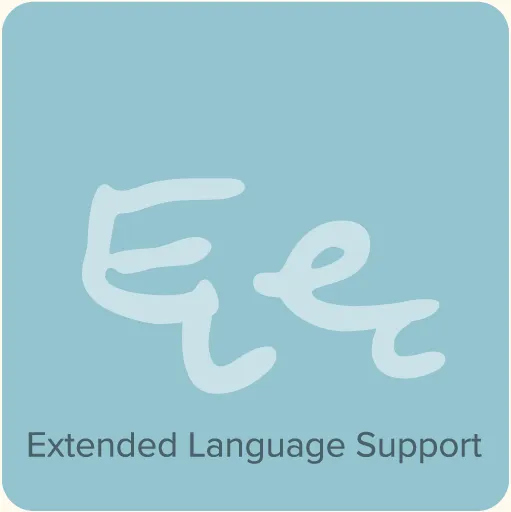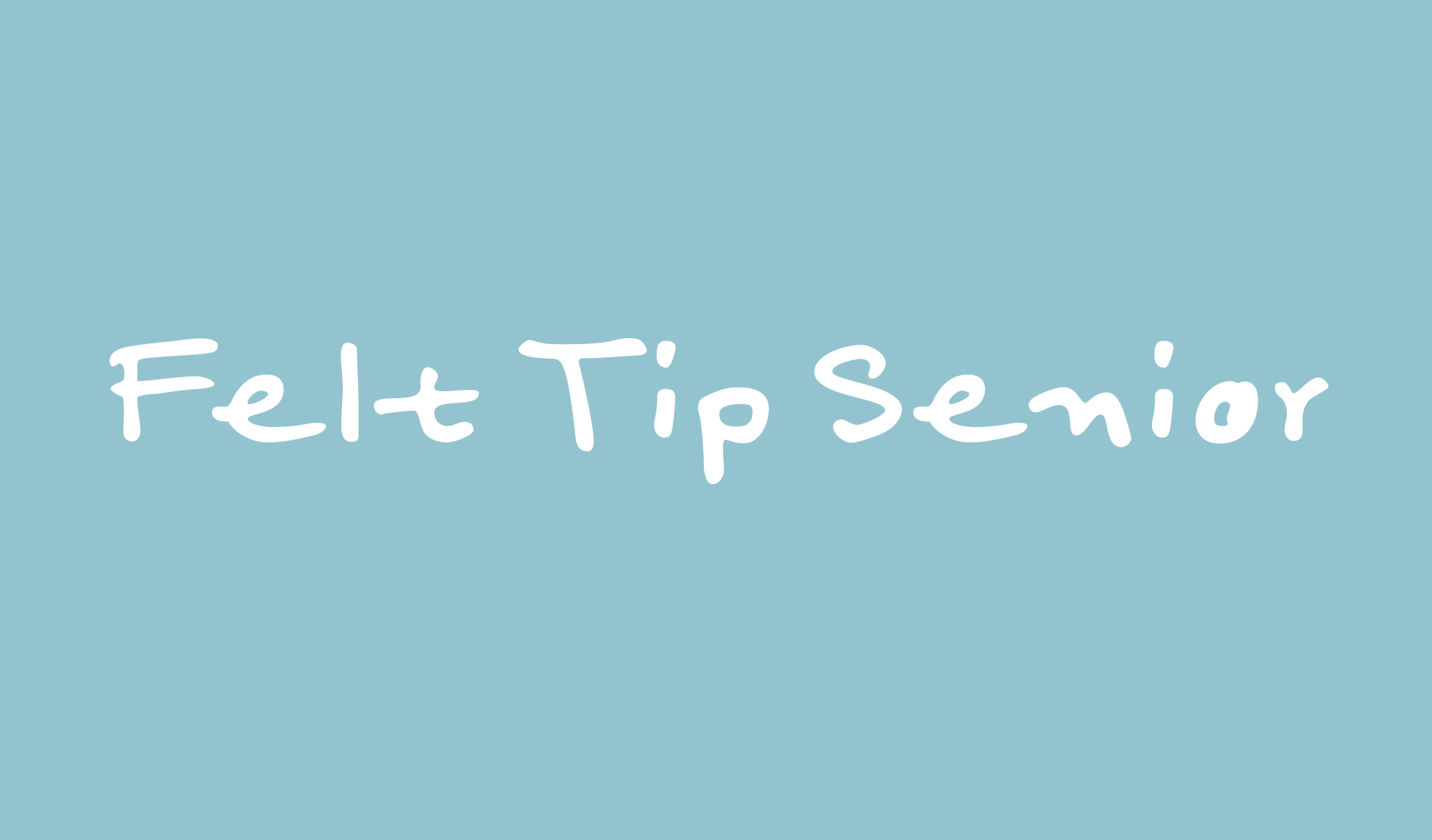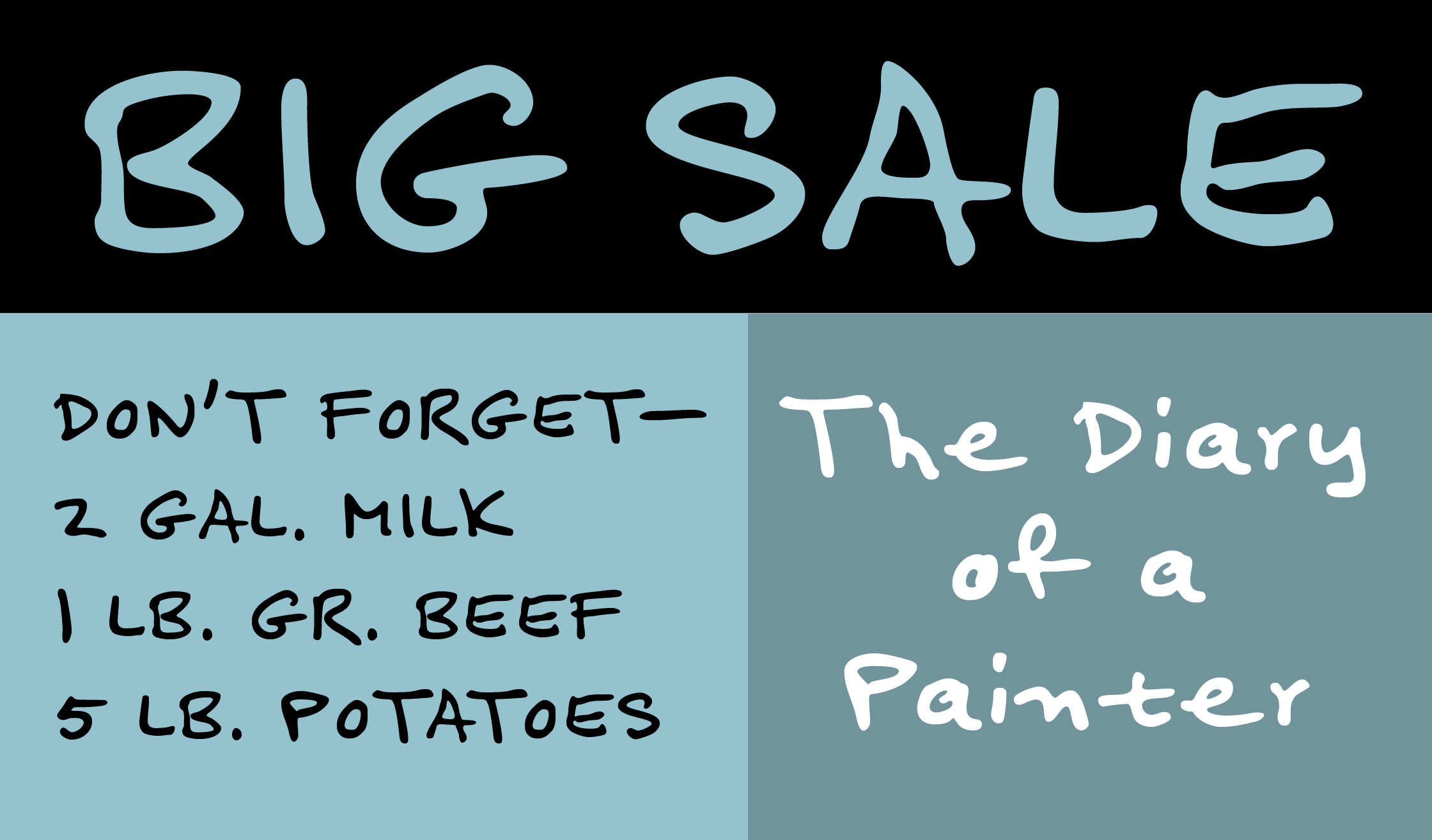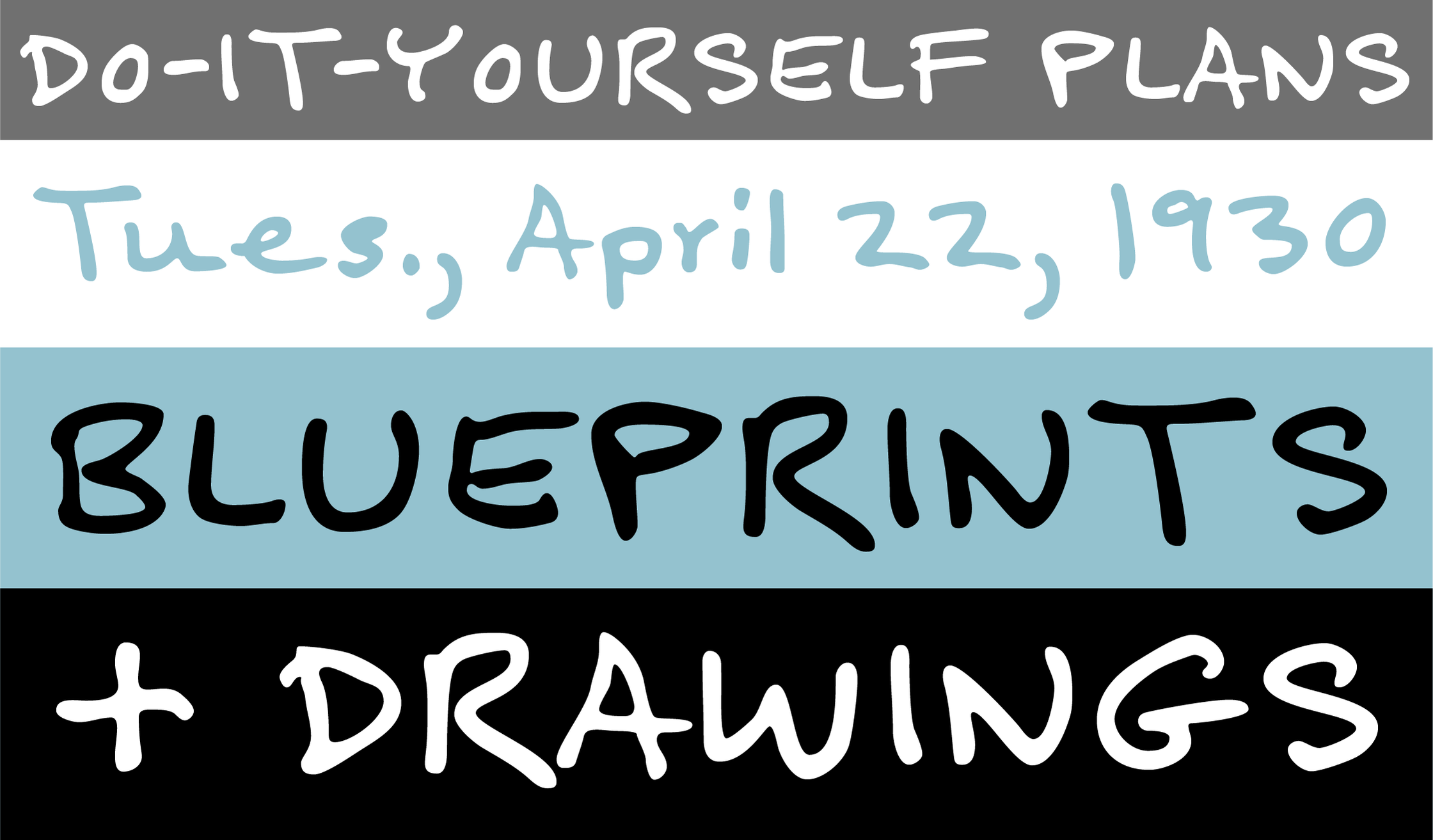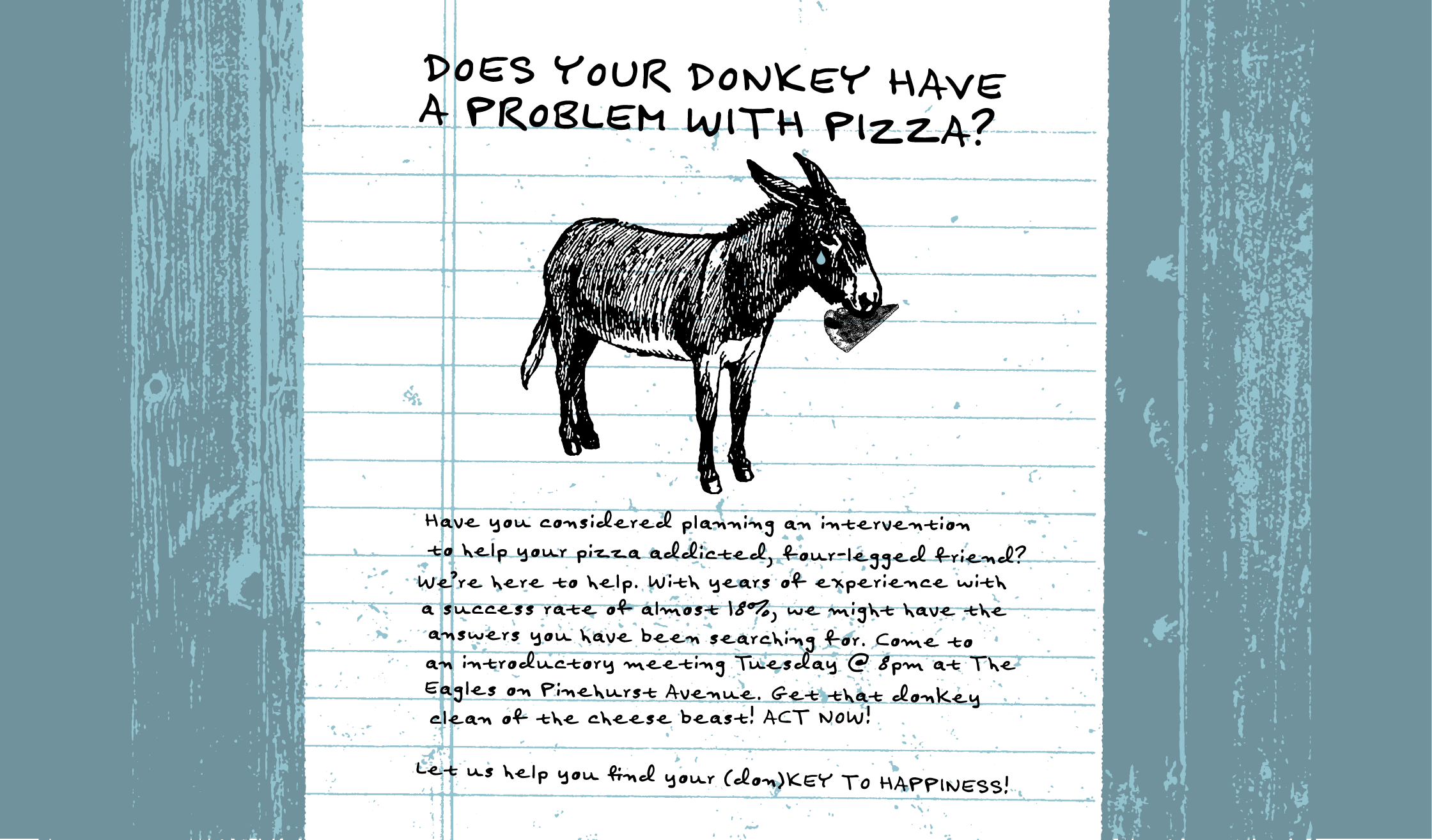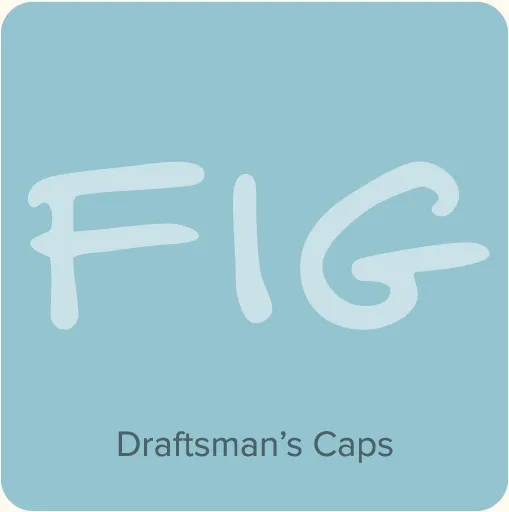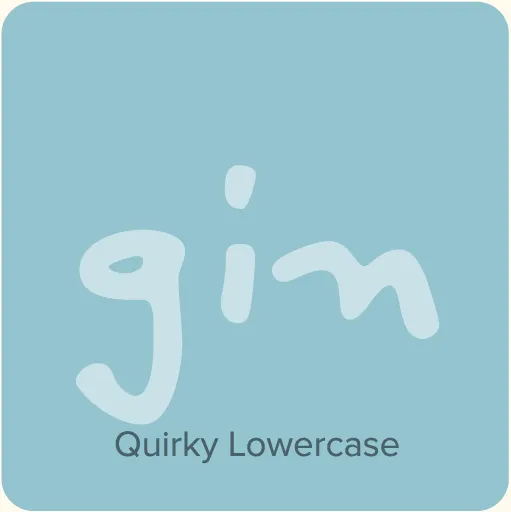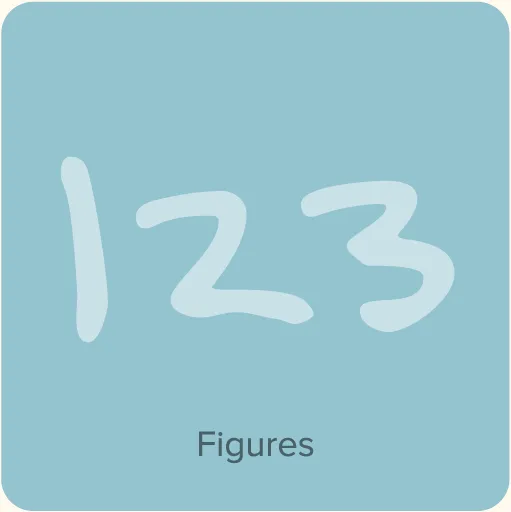
Felt Tip Senior (2000) is a facsimile of my dad’s handwriting, which of course had a big influence on my own handwriting (see my font Felt Tip Roman). He almost always writes in caps, so the lowercase has some surprising and idiosyncratic forms. I originally created this font as a gift to my dad in 1995. His name is Leroy so I called it “Leroy Lettering.” But since that’s a brand name of a lettering tool that some people still use, it could be confusing. I released it as Felt Tip Senior, with my dad’s permission.
Felt Tip Senior Features
- Ligatures.
- Extended language support for most Latin-based Western and Central European languages.